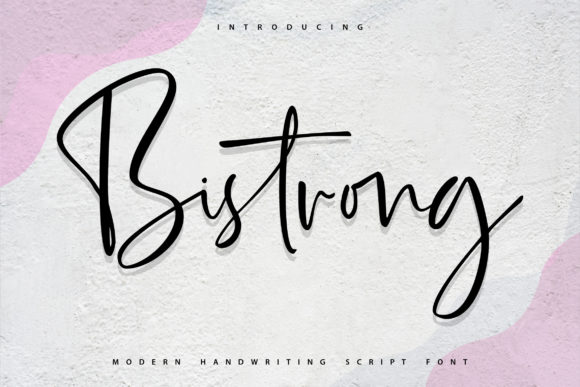
The Designer’s Delight: A Deep Dive into the Bistrong Font
So, what makes Bistrong so special? Let’s dive into the good stuff:
- ✨ Versatility: Bistrong’s incredibly versatile style makes it perfect for a wide range of design projects, from wedding invitations to branding and packaging.
- ✅ PUA Encoding: This font is PUA encoded, which means you can access all the glyphs and swashes with ease, giving you endless creative possibilities.
- 💫 Unique Swashes: The font comes with a variety of swashes that can add a touch of elegance and sophistication to your designs.
Now, let’s talk about a few quirks:
- 🤔 Kerning: Some users might find the kerning a bit off, especially when using the font at smaller sizes. However, this can be easily adjusted in most design software.
While the true story behind Bistrong’s creation remains a mystery, it’s easy to imagine that the designer was inspired by the world of art and design. Perhaps they were inspired by the beautiful, flowing lines of handwritten scripts or the elegance of traditional typography. Whatever the inspiration, Bistrong is a true masterpiece that deserves to be celebrated.
| What is PUA encoding? | PUA (Private Use Area) encoding allows font designers to include additional glyphs and characters that are not part of the standard Unicode character set. This means that Bistrong comes with a wide range of swashes and stylistic alternates that can be accessed easily. |
| Is Bistrong suitable for body text? | While Bistrong is a beautiful font, it’s primarily designed for display purposes. However, it can be used for body text in certain contexts, such as in a blog or article where a touch of elegance is desired. |